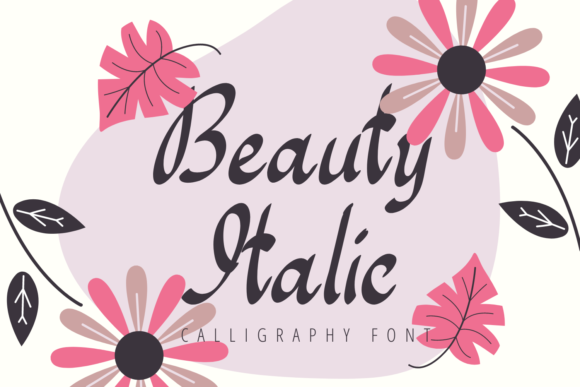
Immerse yourself in the captivating world of Beauty Italic, a script font family that will infuse your designs with grace and elegance. Crafted with meticulous care by Al Ghul, this font exudes beauty and sophistication, transforming your creative visions into stunning realities.
Embark on a journey of aesthetic delight as you explore the diverse range of characters within Beauty Italic. Each letter, delicately crafted with flowing lines and graceful curves, dances across the page like a ballet of ink. Discover the allure of simplicity and effectiveness in the design of this font, where every stroke contributes to its charm and versatility.
With Beauty Italic as your artistic companion, unlock new horizons of creativity. Whether you're a seasoned designer or just starting your artistic journey, this font is your gateway to captivating designs that leave a lasting impression. Elevate your projects to new heights of elegance and sophistication as you witness the transformative power of Beauty Italic.
Experience the magic of Beauty Italic and let your imagination soar. Unleash the potential of your designs and captivate your audience with creations that radiate beauty and charm. Discover the enchanting world of Al Ghul's artistry and elevate your designs to new levels of excellence.